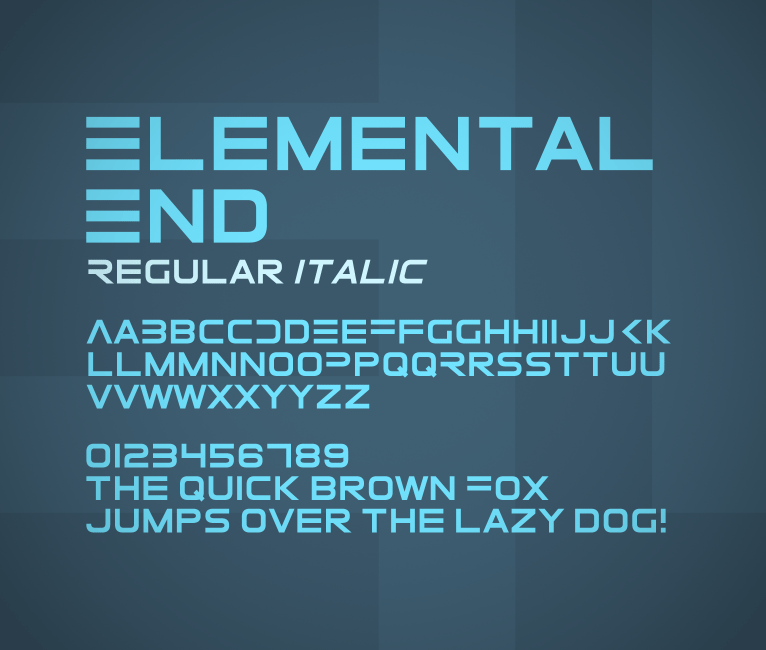
Preview and download Elemental End Font. Created by Zdeněk Gromnica a.k.a. FutureMillennium in Techno Sci-fi styles with Free for personal use license.
Free for non-commercial use only. To purchase a commercial license, please go to http://futuremillennium.com/fonts/license/elemental-end or contact me. A futuristic sans serif caps headline face. Comes in regular and italic. Upper case letters are alternative forms, while lower case are more standard and readable forms. Includes alternative versions of A, B, D, E, F, K, P, R and AE. If this font lacks symbols that you need or you spot a strange looking kerning pair, please let me know! 2012/7/10 Update, version 2.00: Re-did some of the glyphs to keep the brush width constant, re-did the italic version, added more alternative forms of some letters, fixed naming/formatting, kerning and a bunch of other stuff. Licensed under the Creative Commons Attribution-NonCommercial-NoDerivs 3.0 Unported License (CC BY-NC-ND 3.0) |